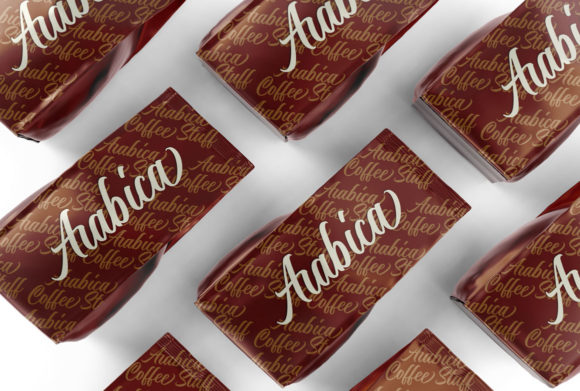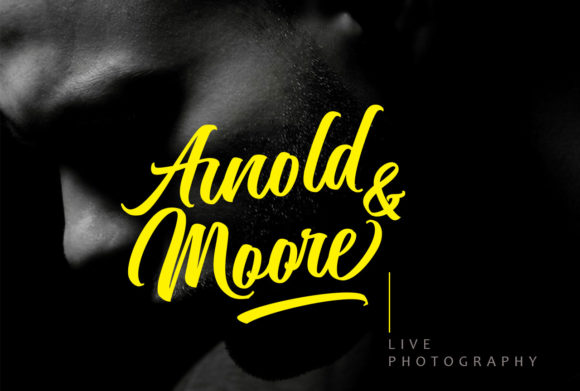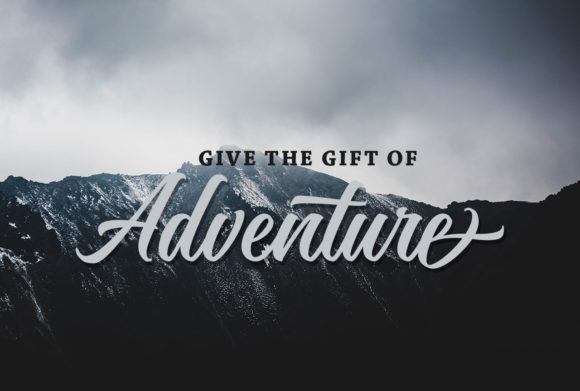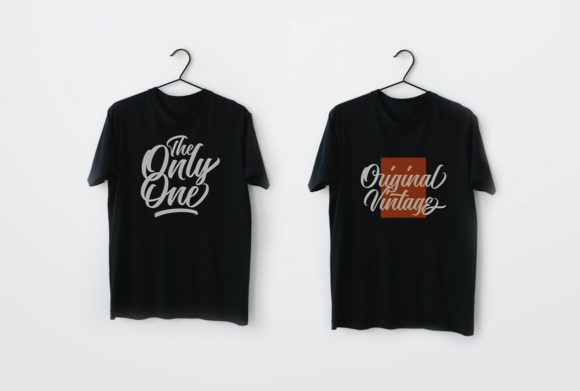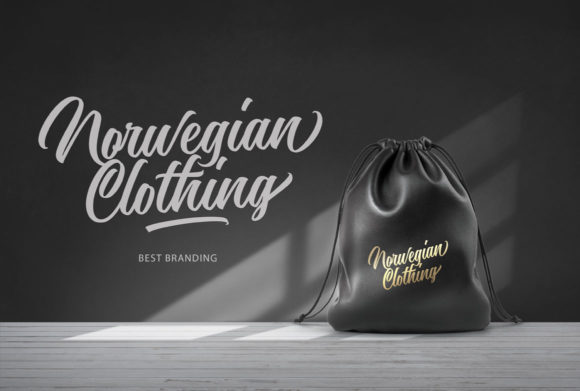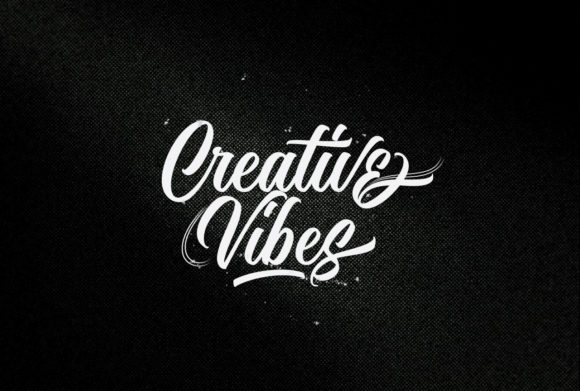
Introduction to Nostalgic Script Font
Nostalgic is a charming and sentimental script that’s perfect for branding projects, logos, badges, insignia, packaging, headlines, posters, t-shirt/apparel, greeting cards, and much more.
Fall in love with this fancy script .